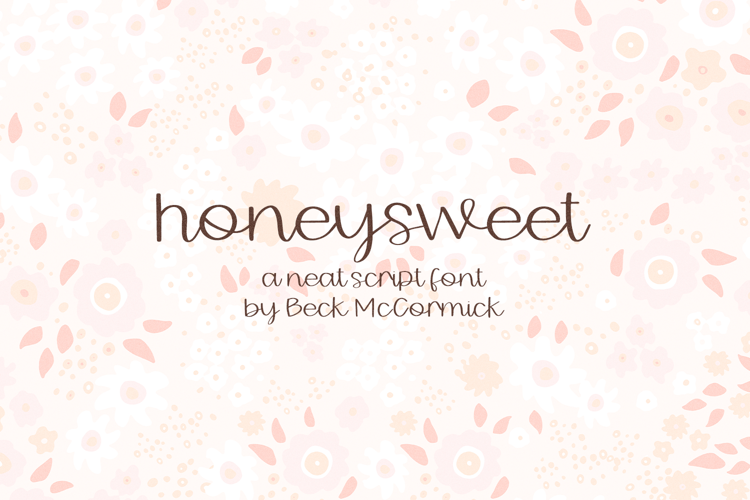
Honey Script Font
This sweet script font will add a charming touch to your logos, designs, ads, social media posts, and so much more! This font style fits the southern, farmhouse feel that is trending and is so beautiful!
There are 18 ligatures included in this font to give it a more hand written feel.
Ligatures are letters that are mindfully connected together to form a more natural, non-font like, feel!-er, it, or, pp, ss, bb, ee, es, ff, gg, ll, mm, nn, oo, st, th, tt, ys